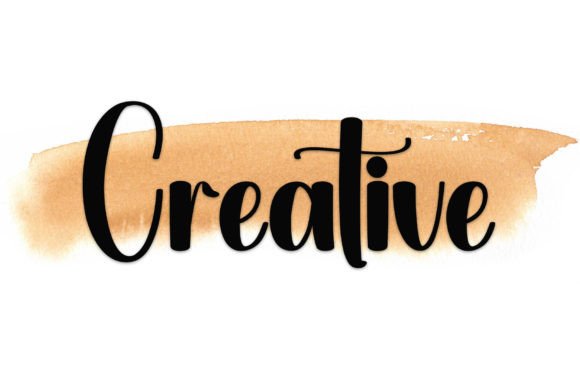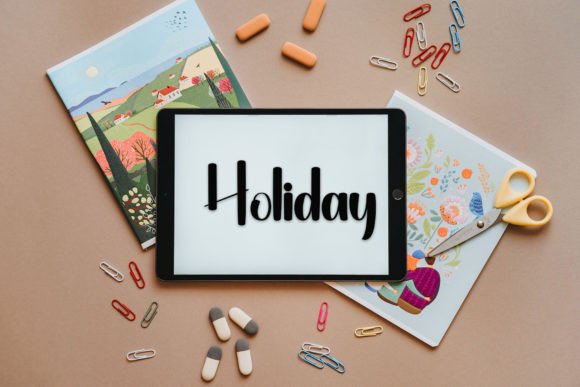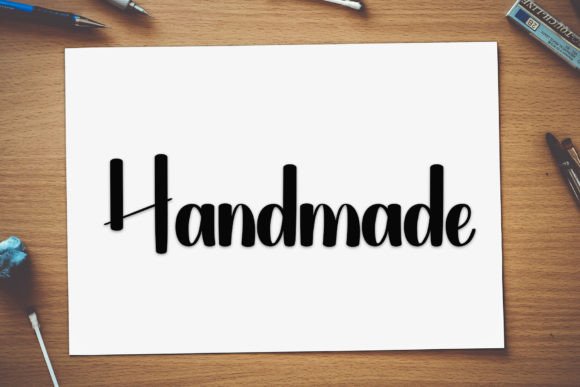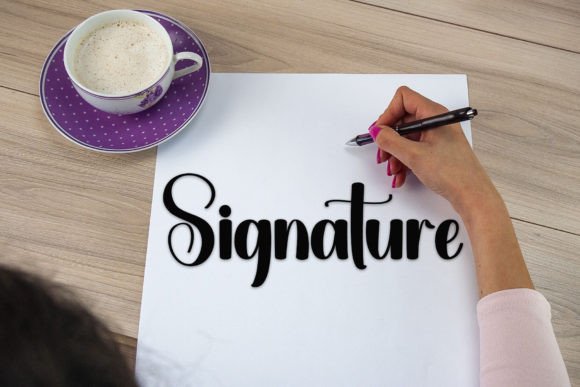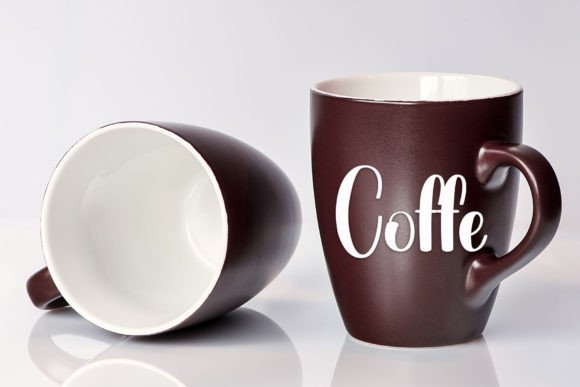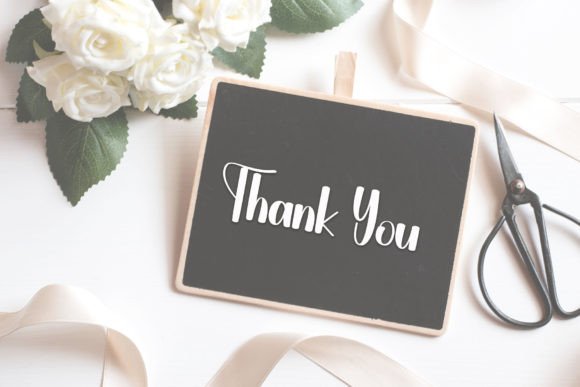
Introducing Chilli Font: Elevate Your Designs with Timeless Elegance
In the world of typography, a font can make or break the aesthetic of a design project. For designers and crafters seeking a stylish and contemporary handwritten font, look no further than Chilli Font. Inspired by timeless classic calligraphy, Chilli brings a touch of sophistication and elegance to any project.
What Makes Chilli Font Stand Out?
Chilli Font is a meticulously crafted handwritten font that exudes a sense of modernity while paying homage to traditional calligraphy. Its impeccable form and balanced design make it an ideal choice for a wide range of projects, from branding and advertising to packaging and digital media.
Key Features of Chilli Font
- Contemporary Atmosphere: Chilli Font boasts a fresh and modern look, perfect for designers looking to add a touch of sophistication to their work.
- Balanced and Varied: The design of Chilli Font is carefully balanced, offering a range of variations that can be used to add depth and interest to any project.
- Inspired by Timeless Classics: Drawing inspiration from classic calligraphy, Chilli Font brings a sense of tradition and timelessness to modern design.
Why Choose Chilli Font for Your Projects?
For designers and crafters, finding the right font can be a daunting task. Chilli Font offers a unique combination of style, versatility, and ease of use, making it an excellent choice for a variety of applications.
Enhance Your Designs with Chilli Font
Whether you’re working on a branding project, creating digital content, or designing packaging, Chilli Font can elevate your work to new heights. Its elegant and modern design ensures that your projects stand out, while its compatibility with a wide range of design software makes it easy to integrate into your workflow.
Using Chilli Font: Tips and Tricks
To get the most out of Chilli Font, consider the following tips:
- Experiment with Ligatures: Take advantage of Chilli Font’s extensive ligature set to add a touch of personality to your text.
- Pair it Wisely: Combine Chilli Font with complementary fonts to create visually appealing and harmonious designs.
Chilli Font is more than just a font – it’s a design tool that can transform your projects with its timeless elegance and modern flair. With its PUA encoding, balanced design, and inspiration from classic calligraphy, Chilli Font is an excellent addition to any designer’s toolkit. Whether you’re a professional designer or a crafter looking to add a personal touch to your work, Chilli Font is sure to impress.
In conclusion, Chilli Font is a stylish and versatile handwritten font that can add a touch of sophistication to any design project. Its contemporary atmosphere, impeccable form, and ease of use make it an excellent choice for designers and crafters alike. Give Chilli Font a try and discover how it can enhance the beauty of your projects.